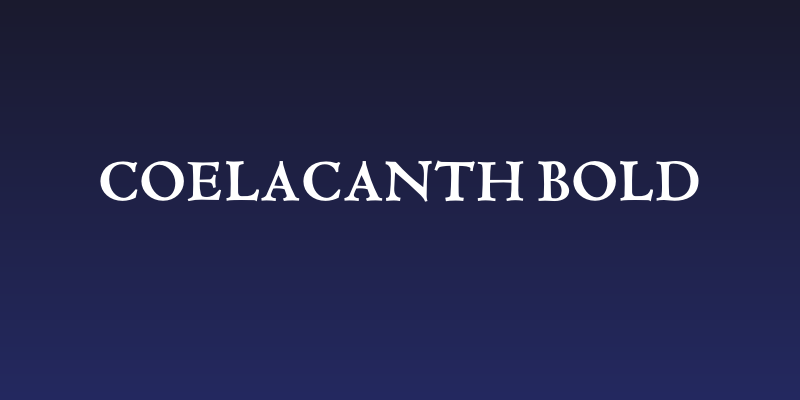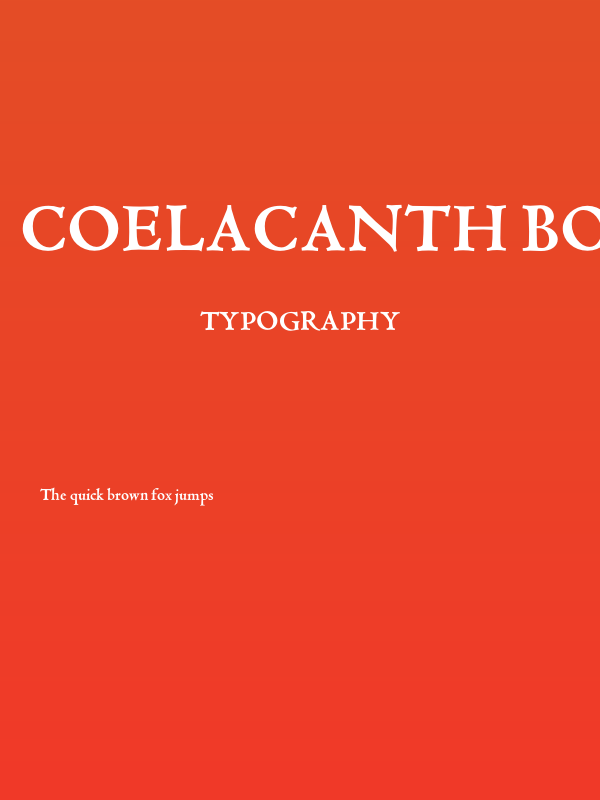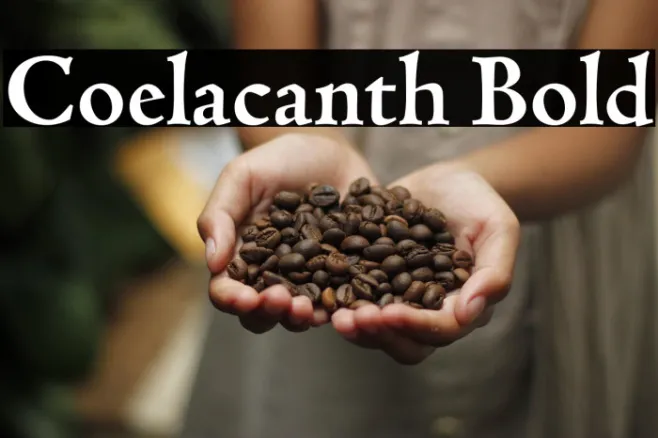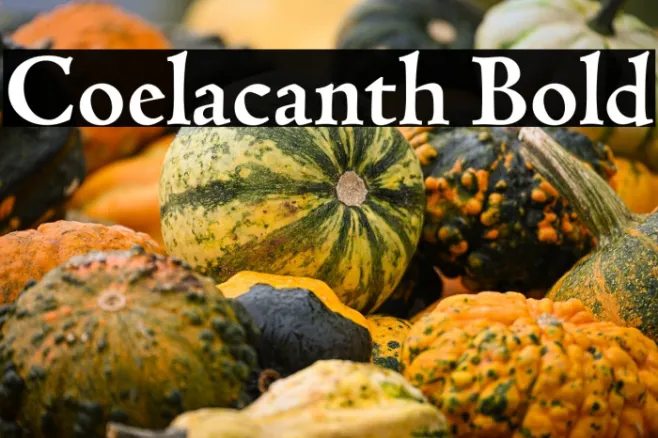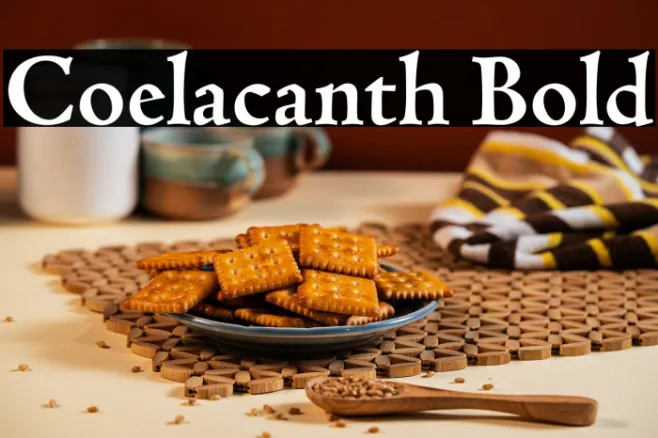
Coelacanth Bold Font
Coelacanth Bold Description
This font features a bold and distinctive serif style, characterized by its strong, pronounced strokes and elegant curves. The uppercase letters exhibit a classic and formal appearance, while the lowercase letters maintain a consistent flow with slightly exaggerated serifs that add a touch of sophistication. The numerals are well-balanced, ensuring readability and aesthetic appeal. Special characters are crafted with attention to detail, complementing the overall design. This font's boldness and clarity make it suitable for various design applications.
| Use Case | Headlines, Logos, Editorial design |
| Proposed Projects | Ideal for book covers, editorial design, branding, and formal invitations. |